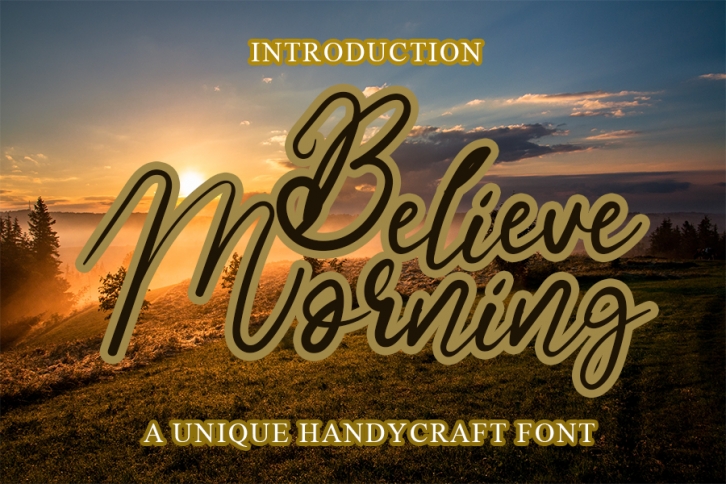
Believe Morning is a sweet and cursive handwritten font. This gentle font will look gorgeous on a variety of design ideas. It is PUA encoded which means you can access all of the glyphs and swashes with ease!